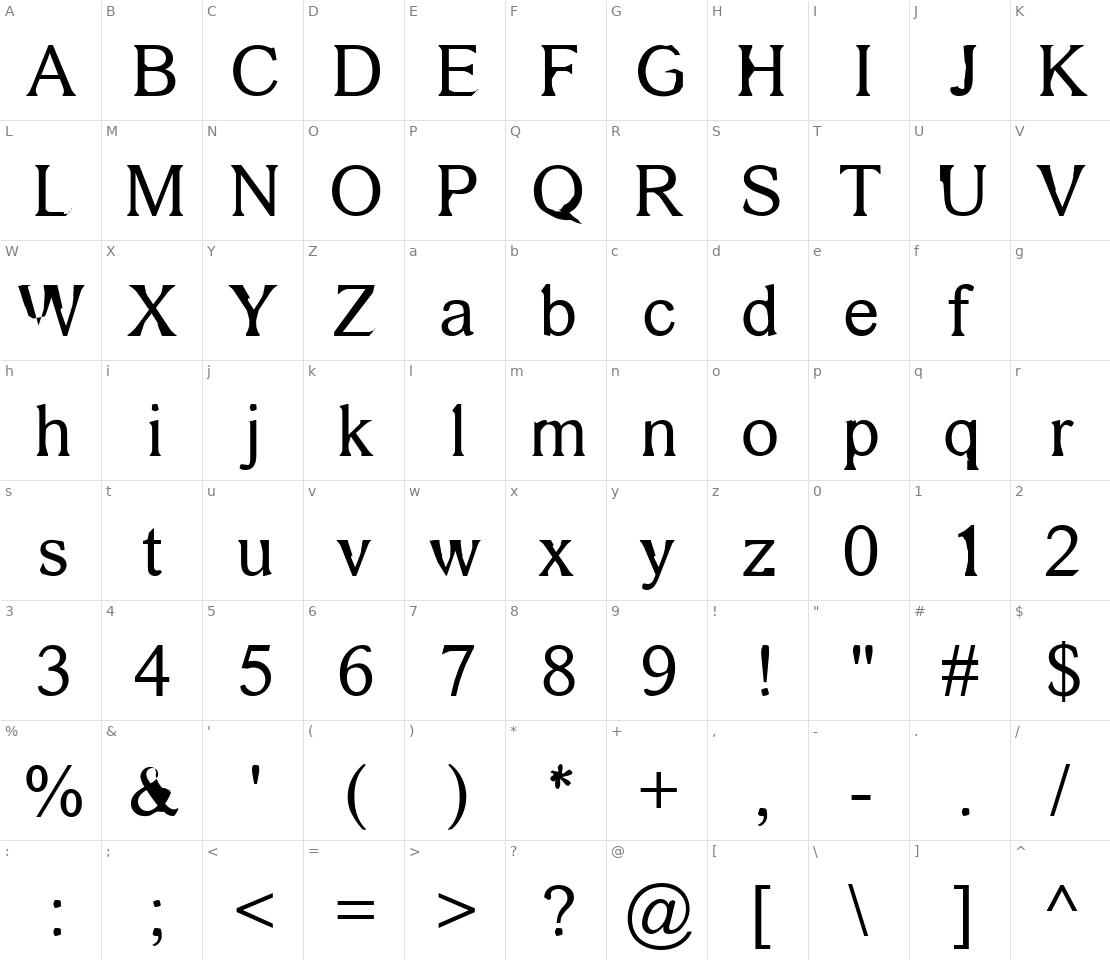
FKR Area51Life
by Fredrik K. Roemteland
FKR Area51Life is a quirky serif from Fredrik K. Roemteland with rough, slightly irregular letterforms that give it a worn, vintage character. The strokes feel hand-cut rather than digitally precise, with subtle imperfections that keep each letter feeling alive and unpredictable. Works well for headlines, editorial layouts, and branding where you want something with texture and personality over clean polish.